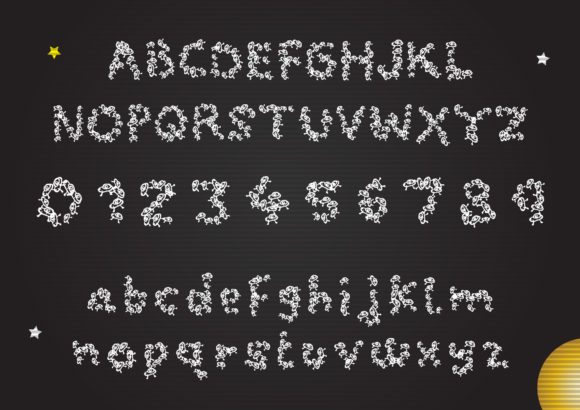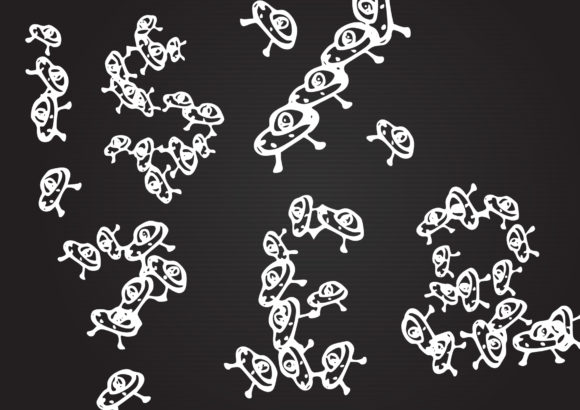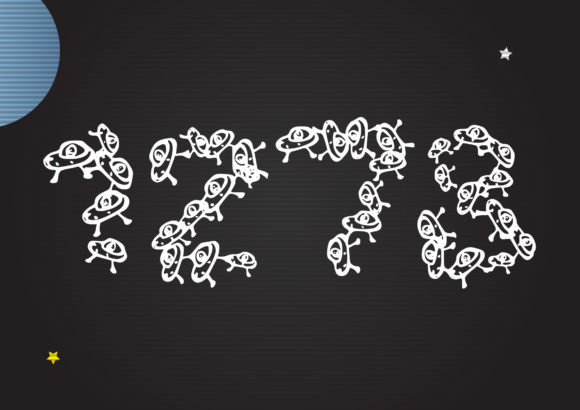
Introduction to Little Ufo Font
Little Ufo is a fun display font.
Add a unique touch to your designs with this cute font .
Key Features of Little Ufo Font
Why Choose Little Ufo Font?
Little Ufo Font offers exceptional quality and versatility, making it a valuable addition to your design toolkit. Whether you’re creating for personal projects or commercial use, Little Ufo Font delivers professional results.